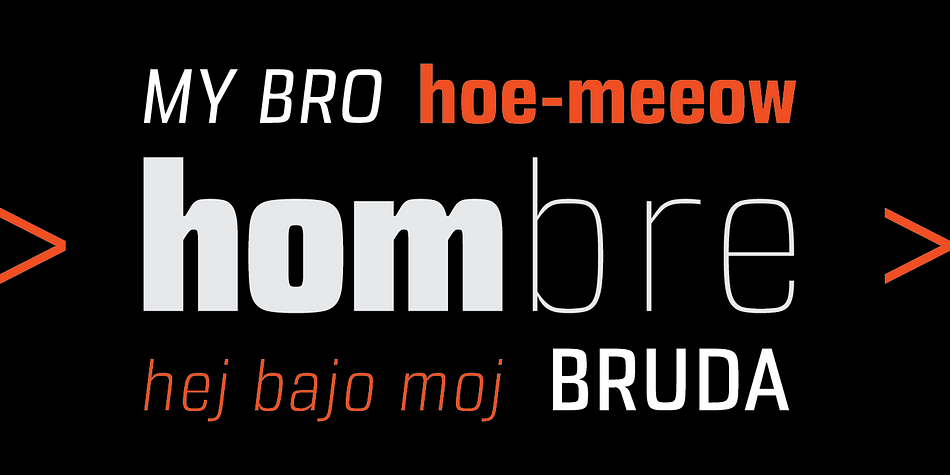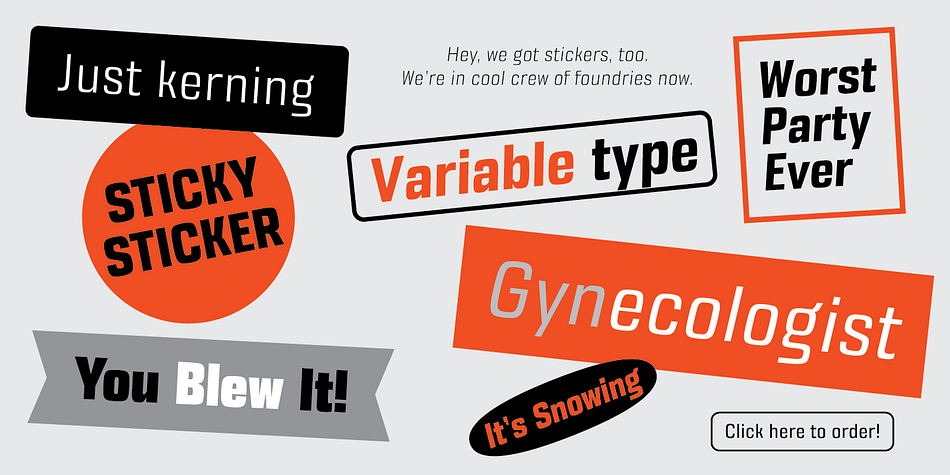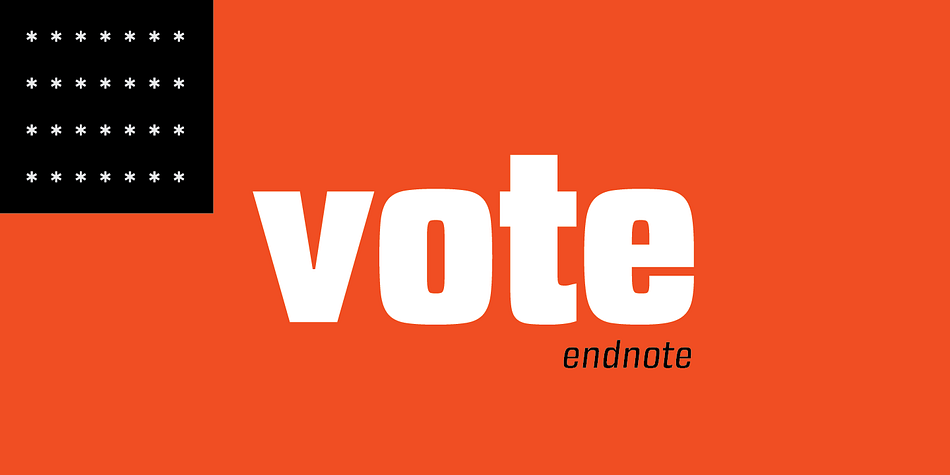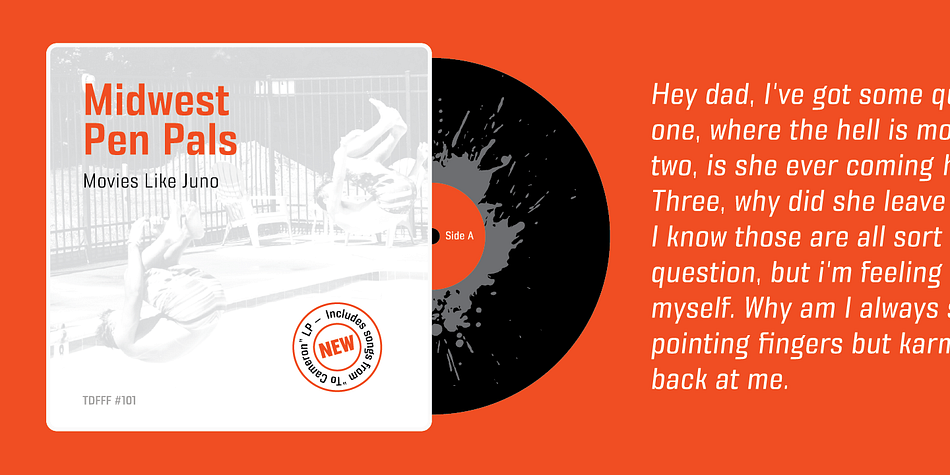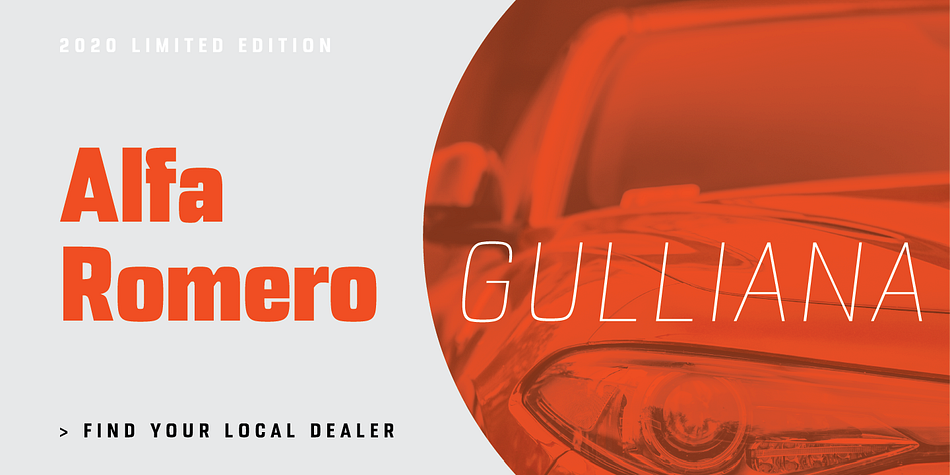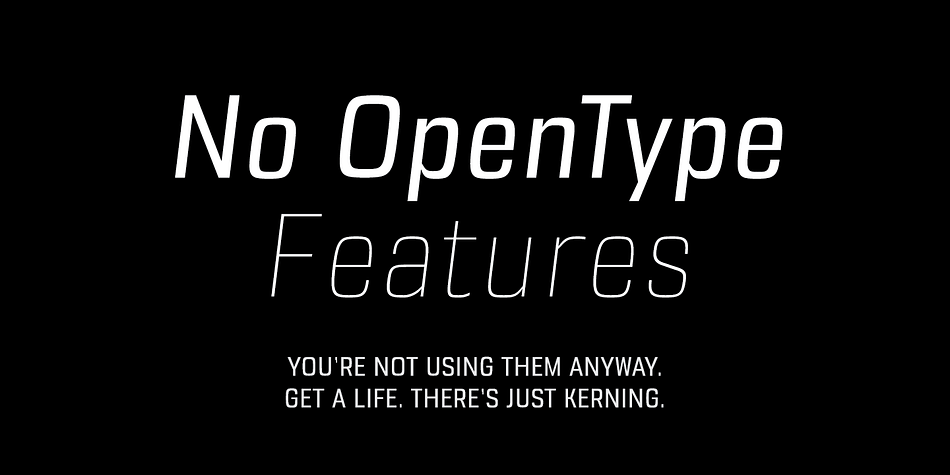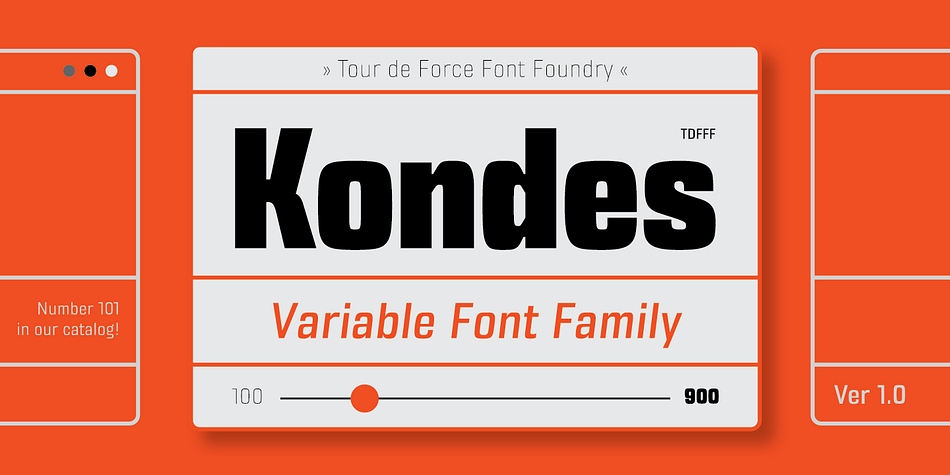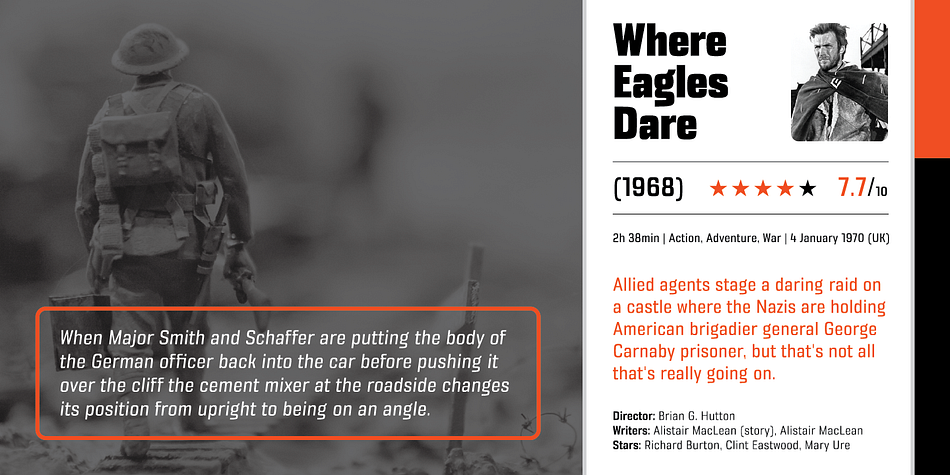
Designed by Dusan Jelesijevic, Kondes is a display sans font family. This typeface has twenty styles and was published by Tour de Force Font Foundry.
Kondes is our “101 Dalmatians” – it’s 101th release in our catalog! And it is the 1st one that belongs to variable typefaces. Kondes (which is made up word as mixture of “condensed” and “kondezovan” on Serbian) is simple, compact, straight-in-your-face sans serif family with 9 weights and 9 Italics. It was designed with purpose to serve and to be use in any project, from editorial to website. For example, Black weight could be used effectively as poster type, in big sizes while Regular fits perfectly as main webfont. Stem joining is done with generous ink trap that divides and opens letter contours, so letter breaths in smaller sizes. Contains extended Latin character set. Enjoy!